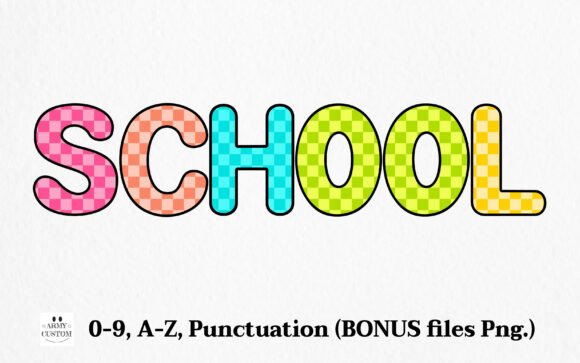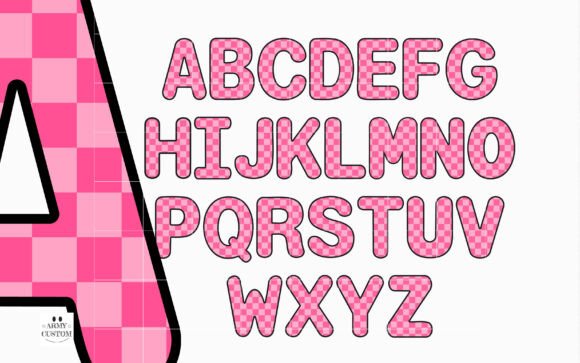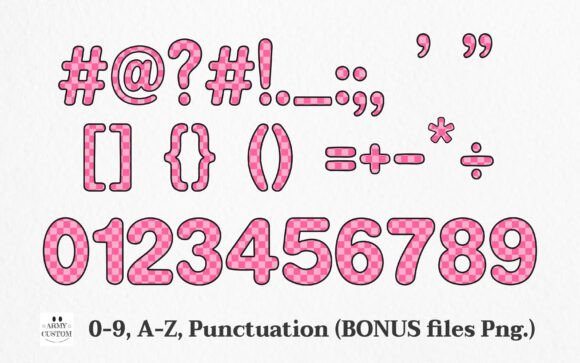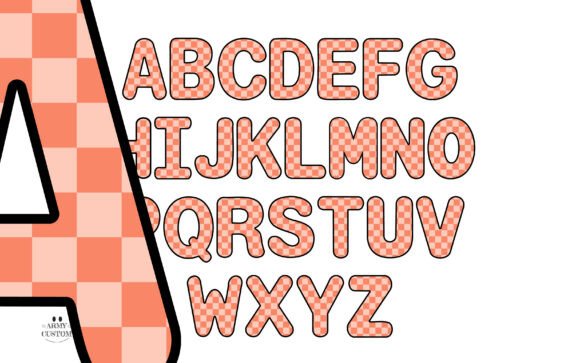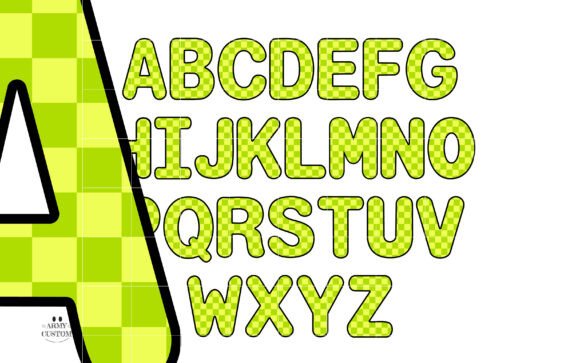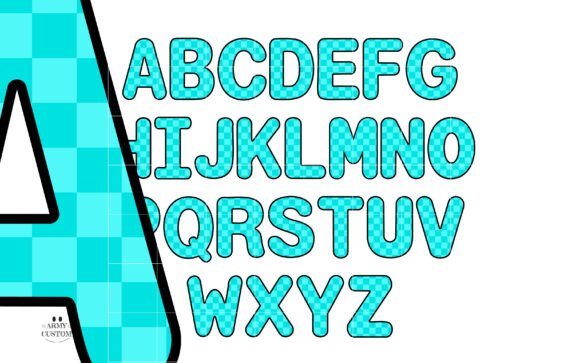
Introducing AM Teacher Font: The Perfect Blend of Fun and Functionality for Educational Designs
Are you a designer, teacher, or crafter looking for a font that can add a playful touch to your educational materials, classroom decor, or school-themed merchandise? Look no further than the AM Teacher Font, a friendly and bold display font designed specifically for the educational sector. Presented by Army Custom, this font is characterized by its thick, rounded “bubble” silhouettes and playful checkered patterns, making it an excellent choice for anyone seeking to create engaging and fun academic content.
Key Features of AM Teacher Font
The AM Teacher Font boasts several key features that make it an ideal choice for educational designs:
- Thick, Rounded Silhouettes: The font’s thick, rounded “bubble” silhouettes give it a friendly and approachable feel, perfect for creating a welcoming atmosphere in educational materials.
- Playful Checkered Patterns: The playful checkered patterns add a touch of whimsy and fun to the font, making it perfect for classroom bulletin boards, teacher appreciation gifts, and school-themed merchandise.
- High Legibility: Despite its playful design, the AM Teacher Font maintains high legibility, ensuring that your message is conveyed clearly and effectively.
- Academic Energy: The font’s design is infused with a fun, academic energy that is sure to engage students and educators alike.
Use Cases for AM Teacher Font
The AM Teacher Font is specifically designed for use in educational settings, making it perfect for:
- Educational Materials: Use the font to create engaging and interactive educational materials, such as worksheets, activity sheets, and educational posters.
- Teacher Appreciation Gifts: Show your appreciation for teachers with custom gifts, such as mugs, tote bags, and personalized notebooks, featuring the AM Teacher Font.
- Classroom Bulletin Boards: Create eye-catching bulletin boards with the AM Teacher Font, perfect for displaying important announcements, classroom rules, and student work.
- School-Themed Merchandise: Design fun and functional school-themed merchandise, such as t-shirts, stickers, and water bottles, using the AM Teacher Font.
Why Choose AM Teacher Font?
So, why choose the AM Teacher Font for your educational designs? Here are just a few reasons:
- Unique Design: The AM Teacher Font boasts a unique design that sets it apart from other fonts, making it perfect for creating distinctive educational materials.
- Easy to Read: The font’s high legibility ensures that your message is conveyed clearly and effectively, making it perfect for use in educational materials.
- Fun and Engaging: The playful design of the AM Teacher Font is sure to engage students and educators alike, making it perfect for creating interactive educational materials.
In conclusion, the AM Teacher Font is a friendly and bold display font that is perfect for educational designs. Its unique design, high legibility, and fun, academic energy make it an excellent choice for designers, teachers, and crafters looking to create engaging and interactive educational materials. Whether you’re creating educational materials, teacher appreciation gifts, classroom bulletin boards, or school-themed merchandise, the AM Teacher Font is sure to be a hit.